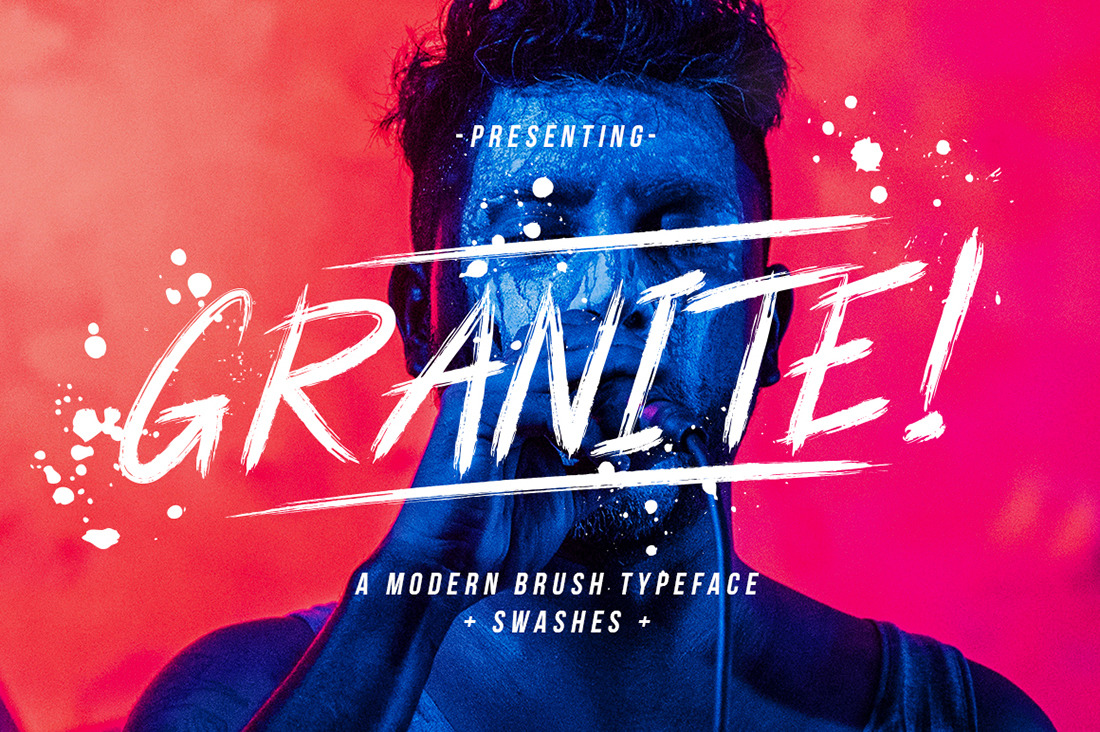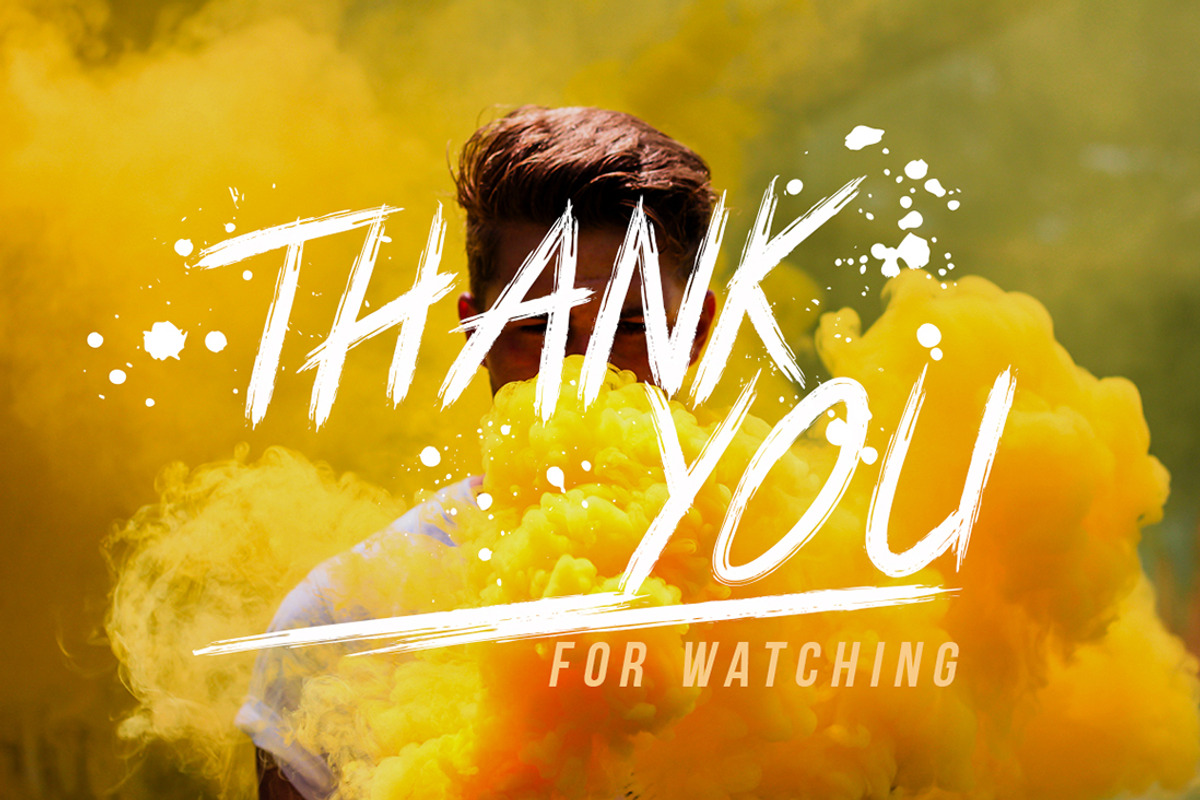
Granite Brush Business Font
Granite is handmade authentic font brush with stylish street lifestyle and looks like extreme sport style usage. Best match for logos, header, titles, prints, apparel & other creative process possibilities.